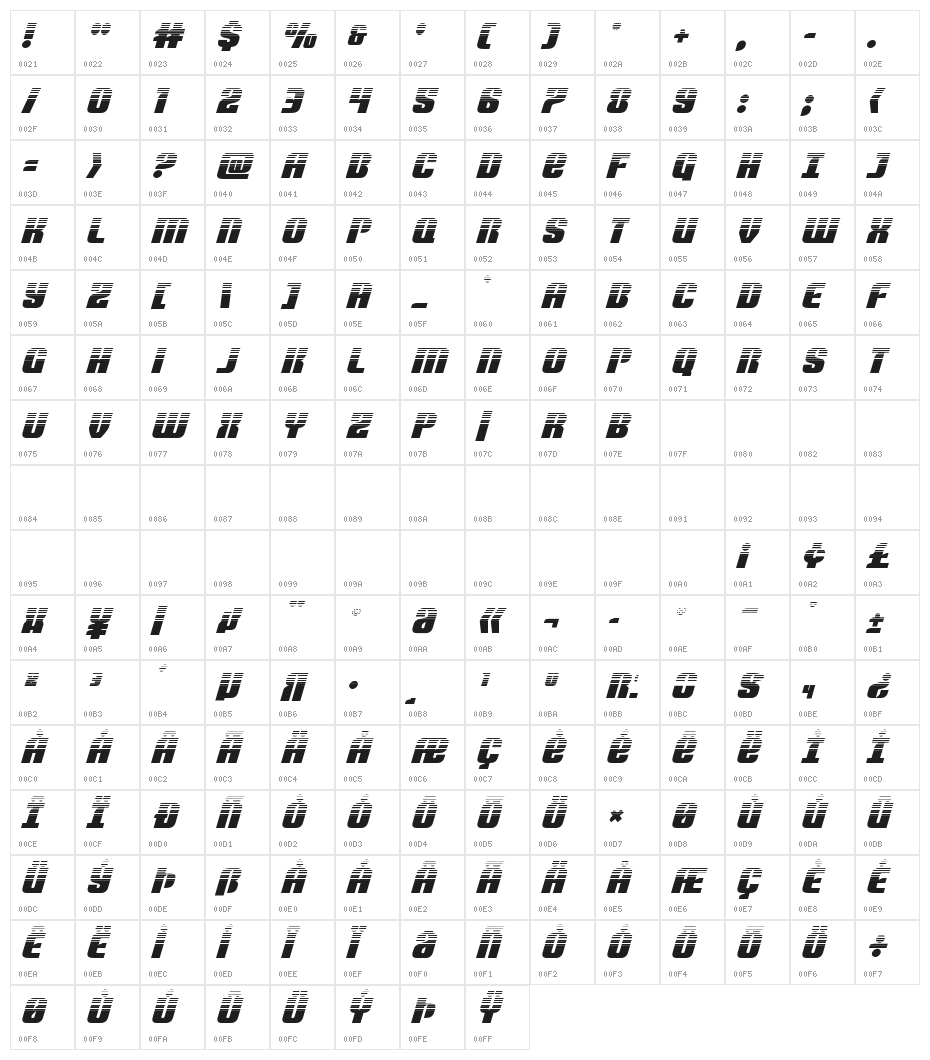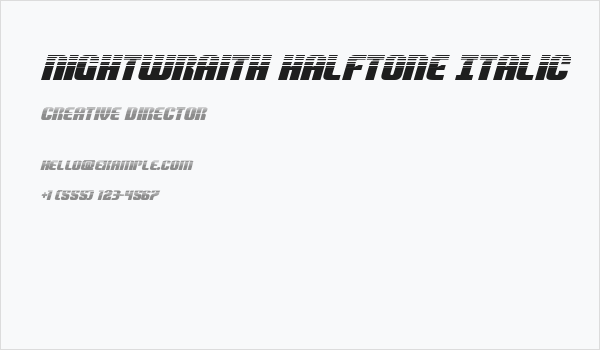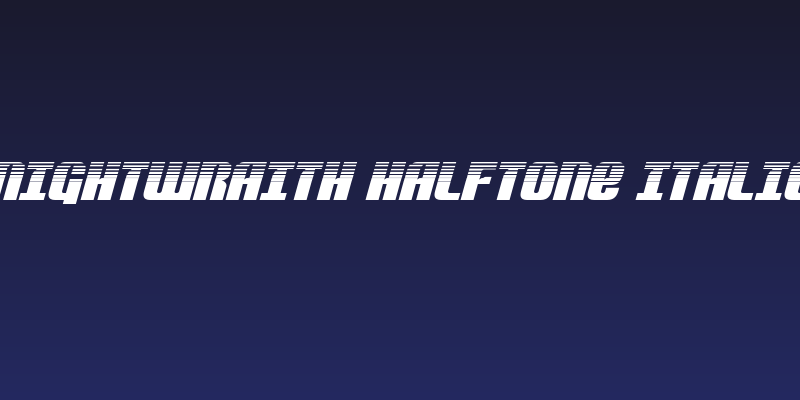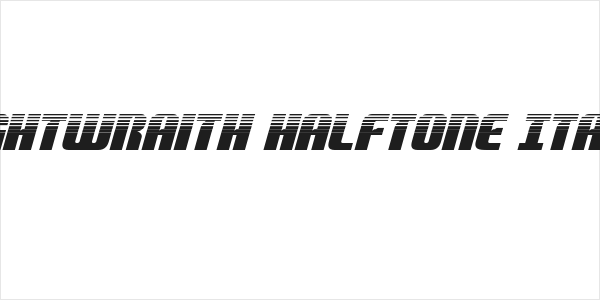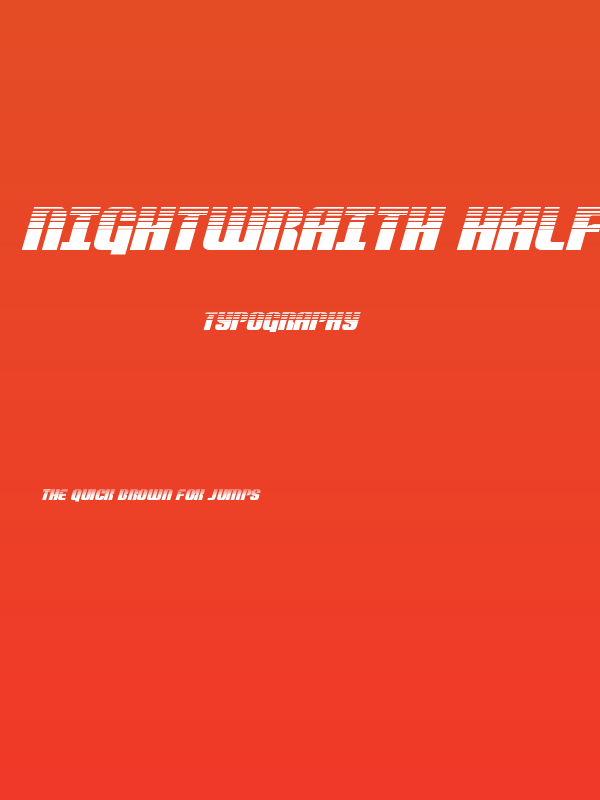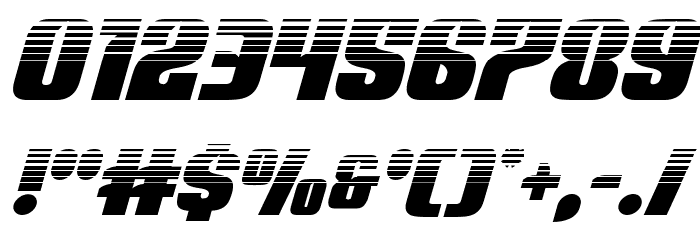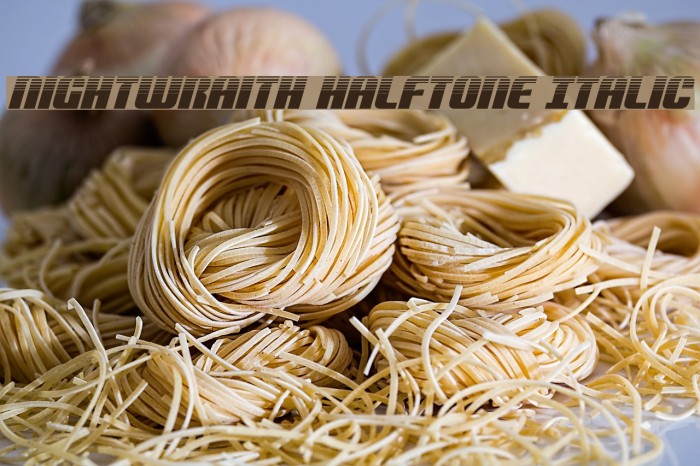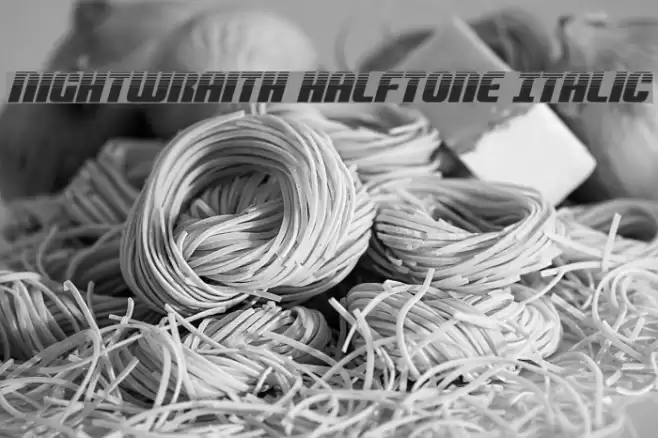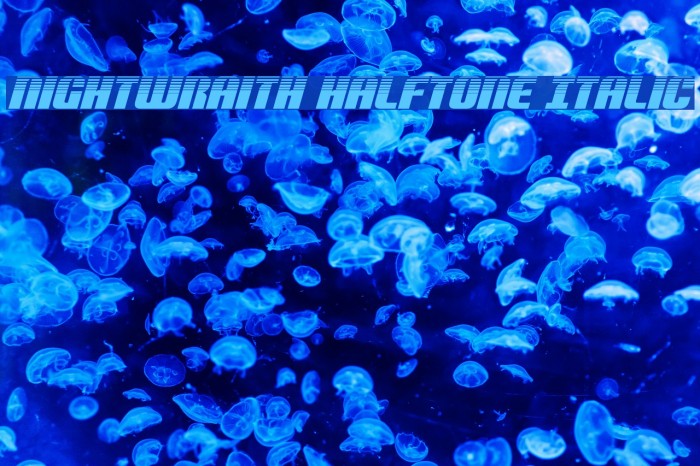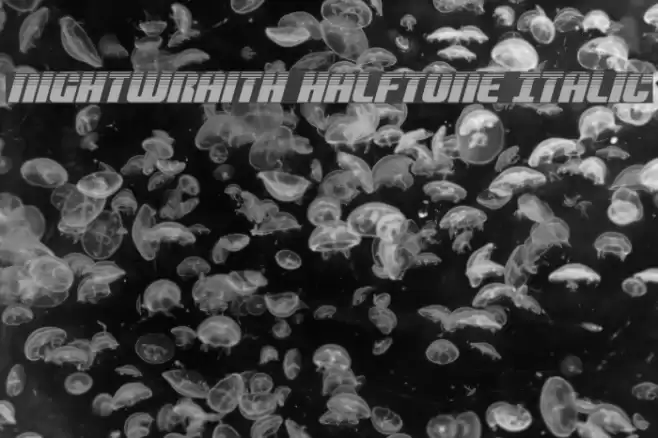
Nightwraith Halftone Italic Font
Nightwraith Halftone Italic Description
This font features a bold, italicized style with a unique halftone effect that gives it a dynamic and futuristic appearance. The characters are designed with horizontal lines that create a sense of motion and depth, making it stand out in any design. The uppercase and lowercase letters maintain a consistent width, while the numbers and special characters complement the overall aesthetic. The font's modern and edgy look is perfect for projects that require a strong visual impact.
| Proposed Projects | Ideal for branding, posters, album covers, and any project needing a bold, modern touch. |